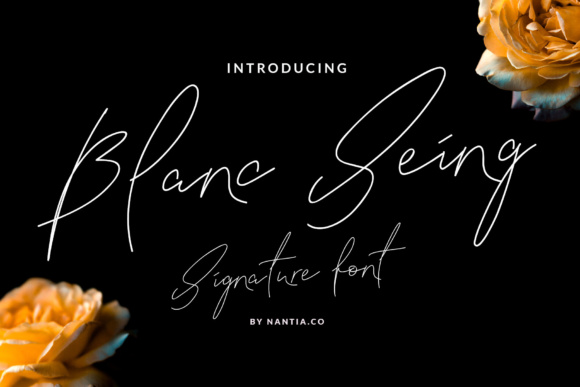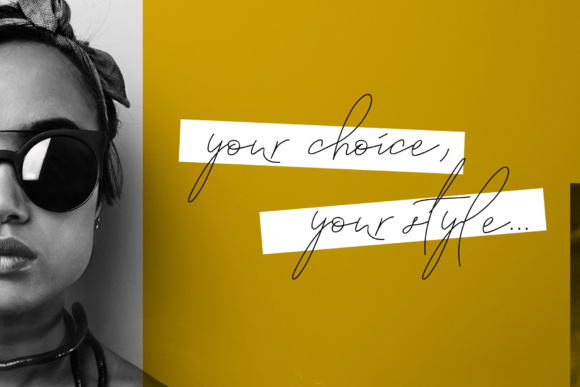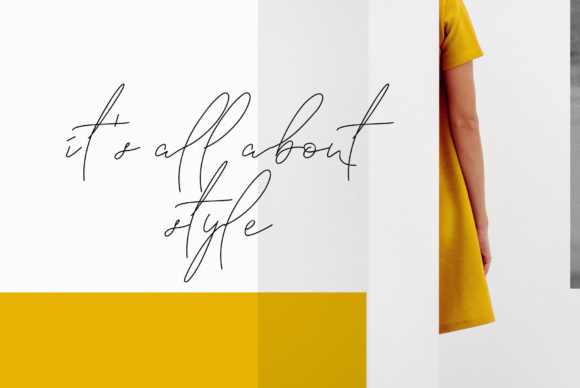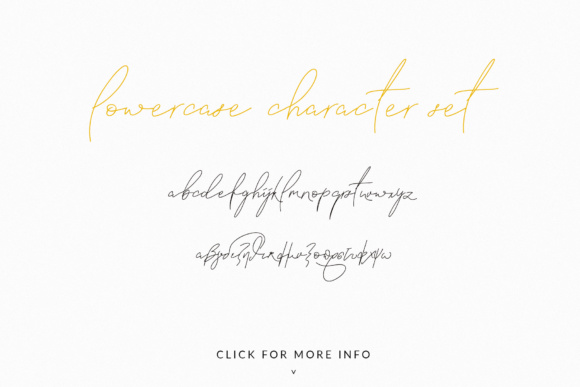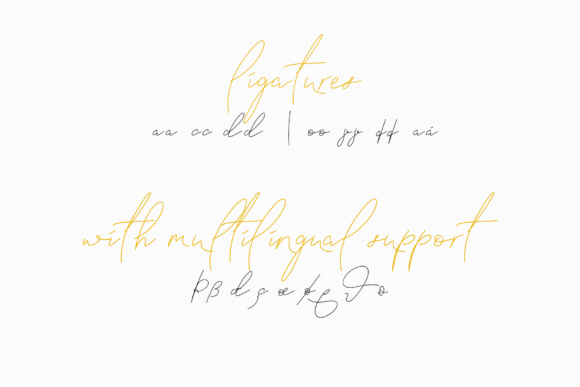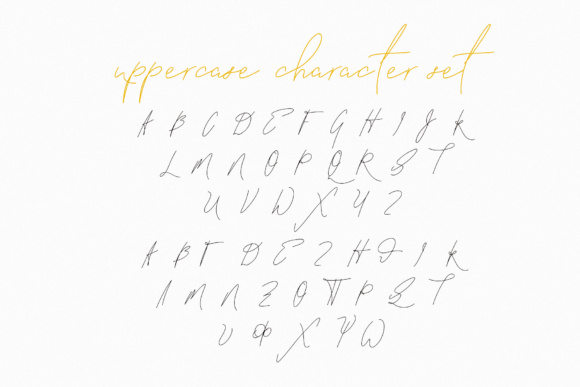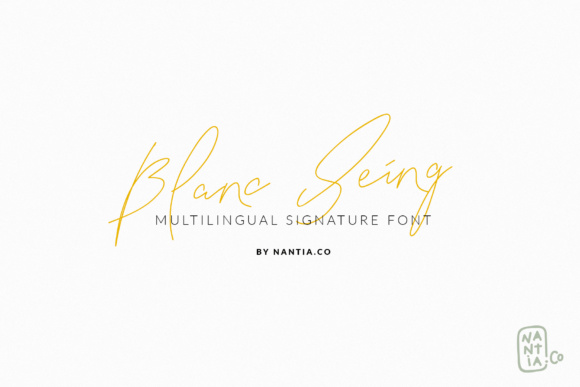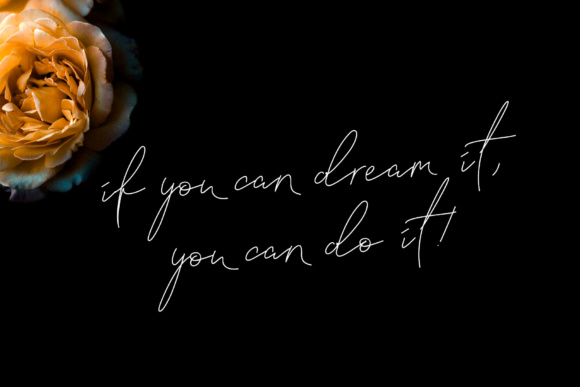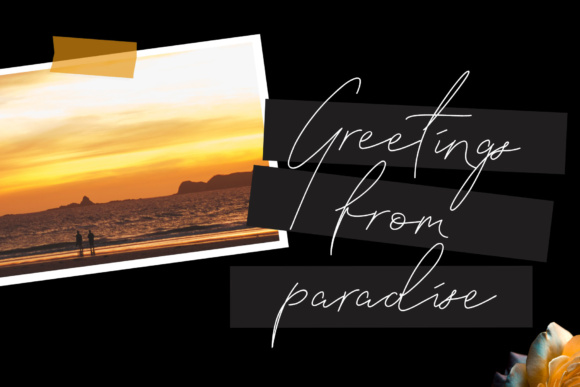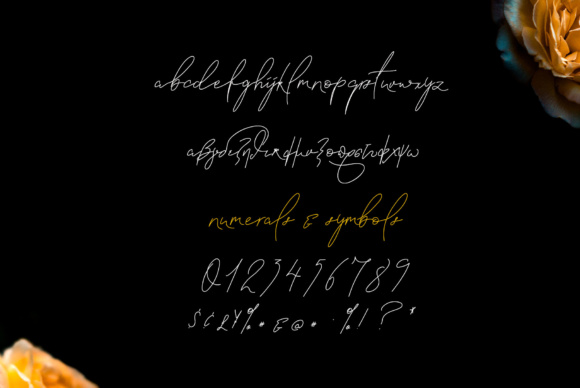
Blanc Seing Font
About Blanc Seing Font
The Blanc Seing is a decorative signature font with which you can achieve a handwritten feel in every design. This signature style typeface is perfect for modern designing needs.